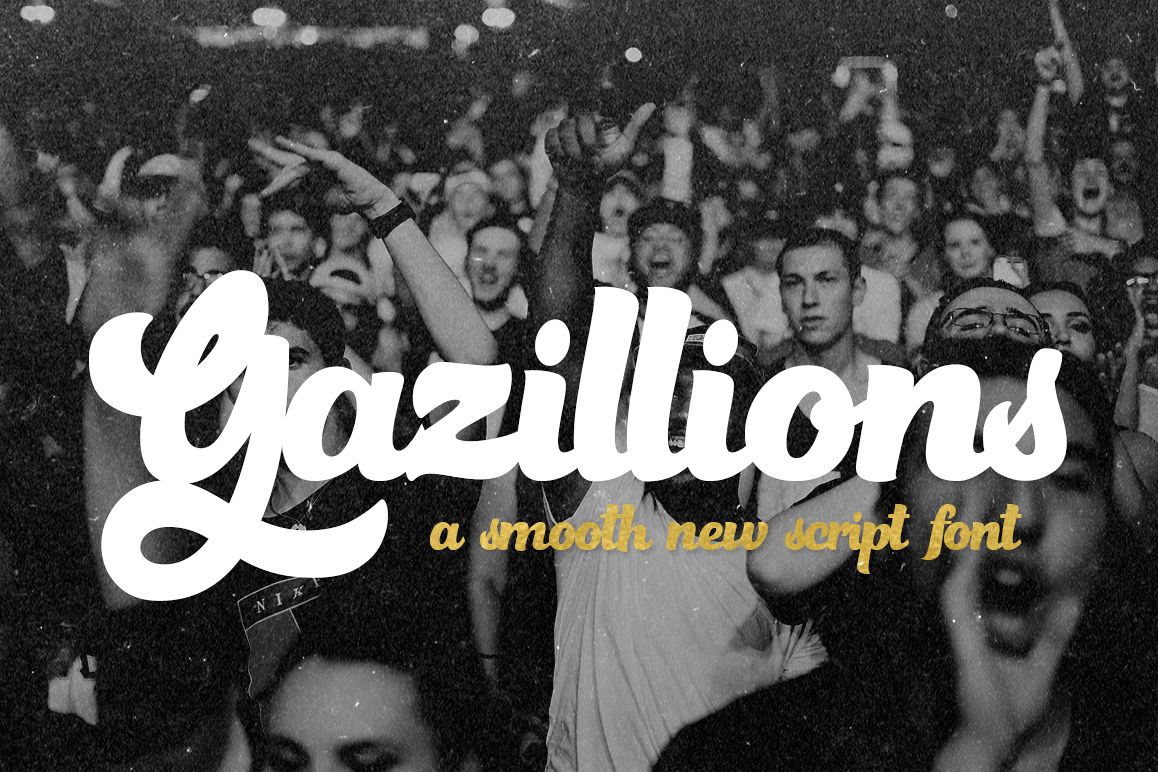
Gazillion Script is here! A wonderful new font duo with lots of extras and swirly characters that can enhance your designs and make them a gazillion times better (Sorry..!) Combine the two fonts (Script and Fancy) to create unique styles and then let them loose on your latest project! Enjoy!